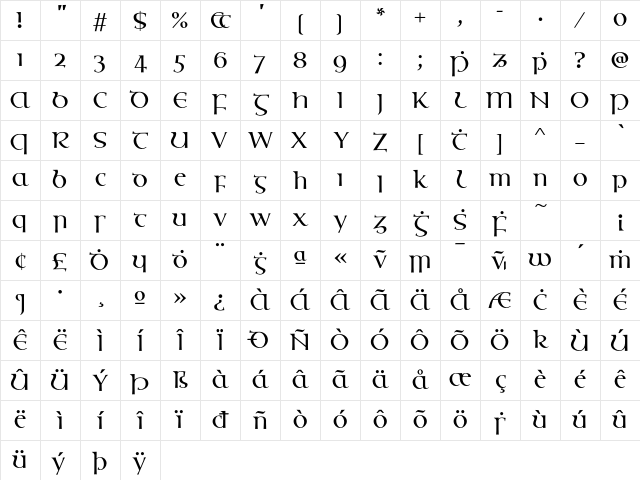
OssianGaelicEF Regular
OssianGaelicEF Family
OssianGaelicEF Regular
Design Context for OssianGaelicEF
OssianGaelicEF is a composed and adaptable typeface that performs quietly and consistently across a wide range of design contexts.